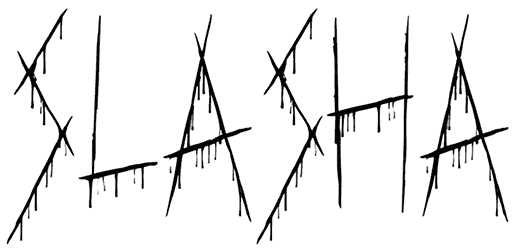
Slasha Font
If you are looking for a well-designed horror font, the Slasha font is an appropriate choice. This font has a harsh feeling and immediately grabs the attention. You may use the Slasha font in several situations, such as…
If you are looking for a well-designed horror font, the Slasha font is an appropriate choice. This font has a harsh feeling and immediately grabs the attention.
You may use the Slasha font in several situations, such as posters, logos, and movie titles, while the lowercase letters and symbols are not included. This scratch font’s letters have a geometric style with sharp edges that seem entertaining. Moreover, their linear style and angular shape create a new experience for your audience.